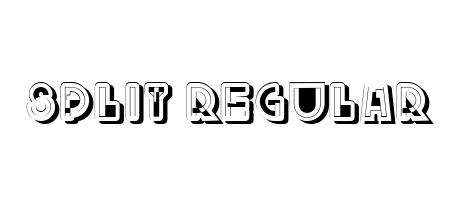
Split
Split Regular: A bold, playful font with a distinctive, slightly off-kilter style. Each letter appears subtly fractured, creating a dynamic, almost three-dimensional effect. Its confident, geometric shapes give it a retro-futuristic vibe, suitable for headlines or logos needing a touch of energetic quirkiness.
Vladimir Nikolic